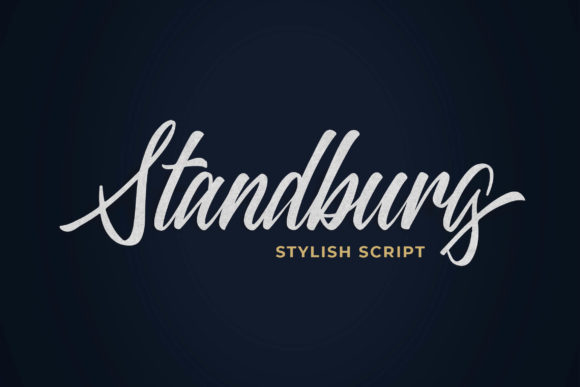
Unveil the Elegance: Standberg Script - A Timeless Masterpiece for Discerning Designers
Prepare to be captivated by Standberg, an extraordinary script font that exudes sophistication and grace. Its meticulously crafted curves and impeccable styling evoke a sense of opulence and refinement, making it the perfect choice for designers seeking to elevate their creative projects.
With Standberg as your canvas, your words will transform into enchanting works of art. Its timeless beauty lends itself effortlessly to a myriad of applications, from wedding invitations and branding projects to social media posts and website designs. Whether you're a seasoned professional or just starting your design journey, Standberg will elevate your work to new heights.
Immerse yourself in the boundless possibilities offered by Standberg. Its versatility knows no bounds, allowing you to explore a spectrum of styles and expressions. From elegant and formal to whimsical and playful, Standberg adapts seamlessly to your creative vision, delivering stunning results every time.
Stand out from the crowd and embrace the allure of Standberg. Its distinctive charm and captivating presence will leave a lasting impression on your audience, ensuring that your designs garner the attention they deserve. Step into the realm of creativity and let Standberg guide you towards design excellence.